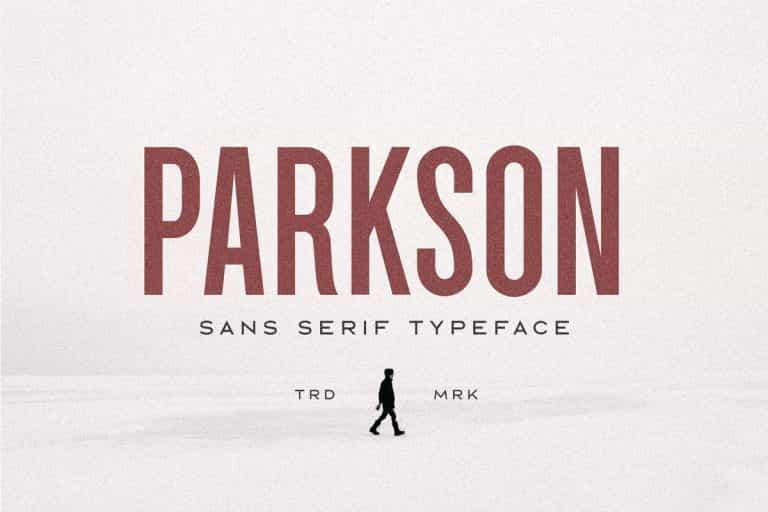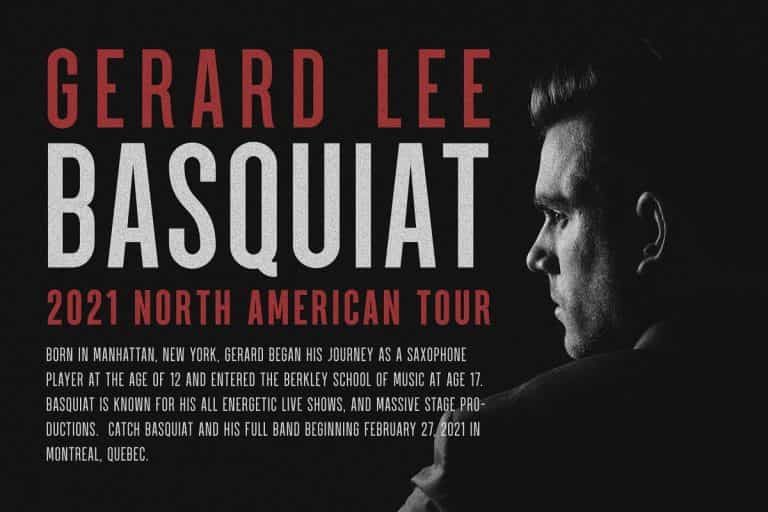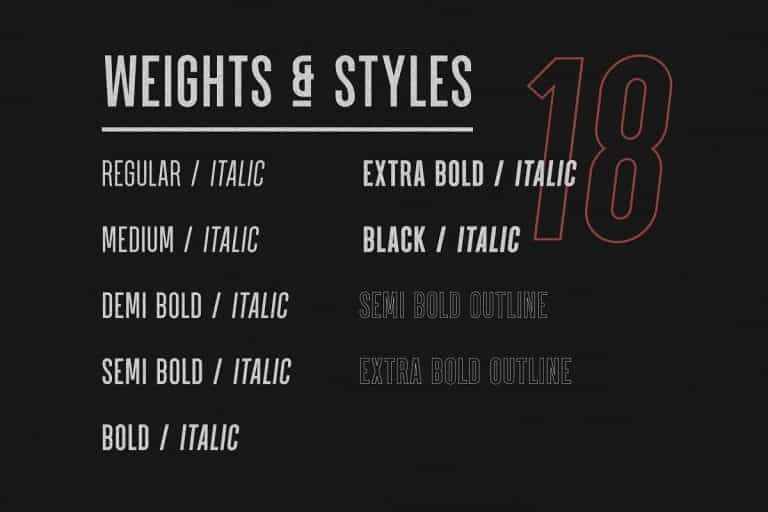
This font is tall. Ultra sans serif font that has seven weights. In case you like the solid letters with many different Ligatures and styles to choose from, this font would be a good option for you. The typeface is easily recognised and at the same time it is of a stylishly elegant and powerful design.